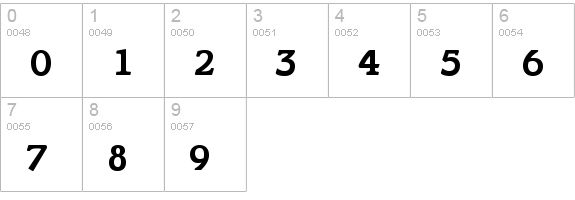
AT Bramley Bold Font Details
AT Bramley Bold is a strong, high-contrast variant in the AT typeface family \xE2\x80\x94 well suited to headlines, attention-grabbing titles, and strong calls-to-action.
Introducing AT Bramley Bold font, a modern and sophisticated typeface that exudes elegance and professionalism. With its bold and striking design, this font is perfect for making a strong statement in your projects. Whether you're designing a logo, a poster, or a website, AT Bramley Bold will surely catch the eye of your audience. And the best part? AT Bramley Bold font is available for free to download at FontsMarket.com. So, you can easily enhance your designs with this stylish and versatile typeface without any cost. Don't miss out on the opportunity to add this stunning font to your collection and take your designs to the next level. Download AT Bramley Bold today and let your creativity shine!